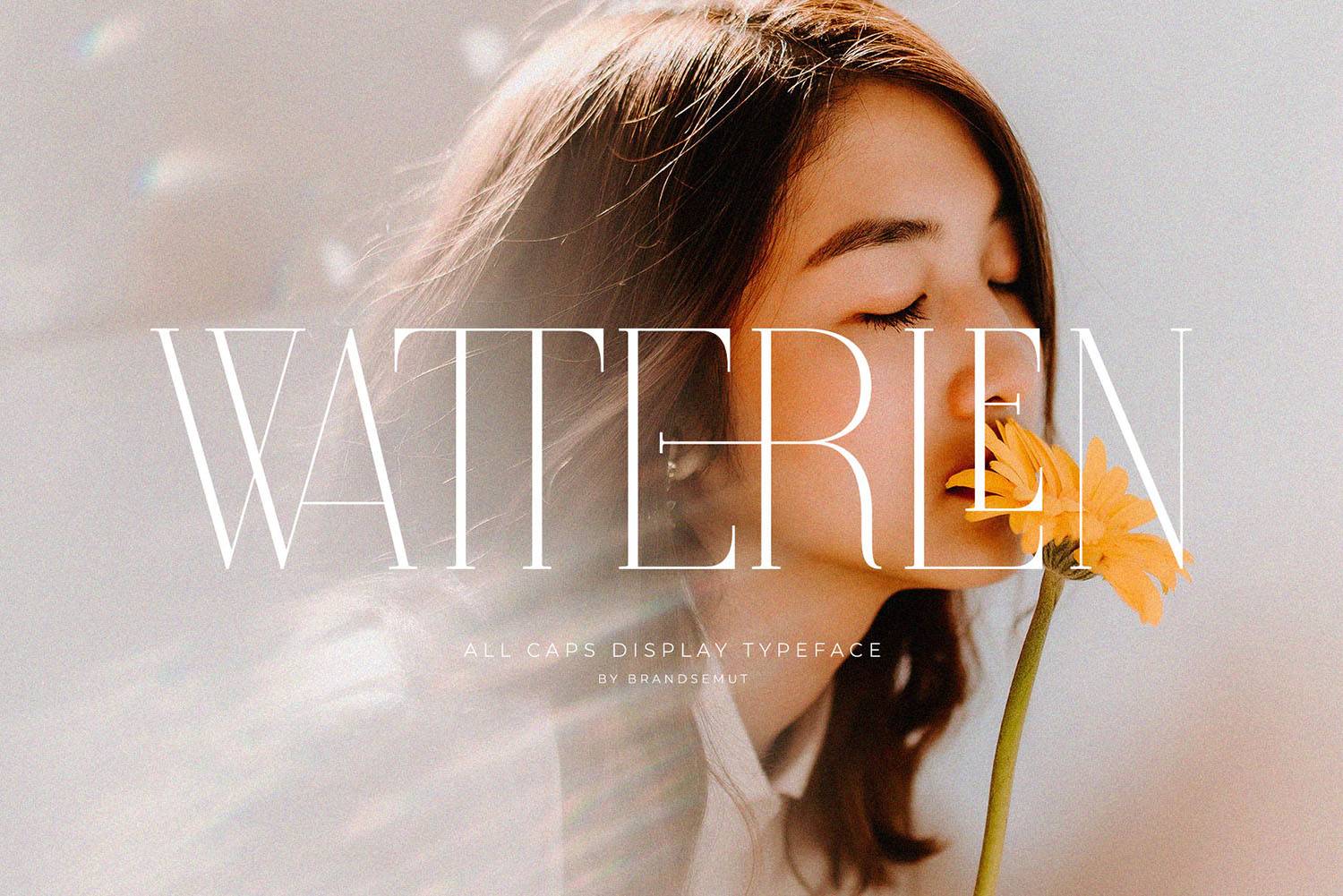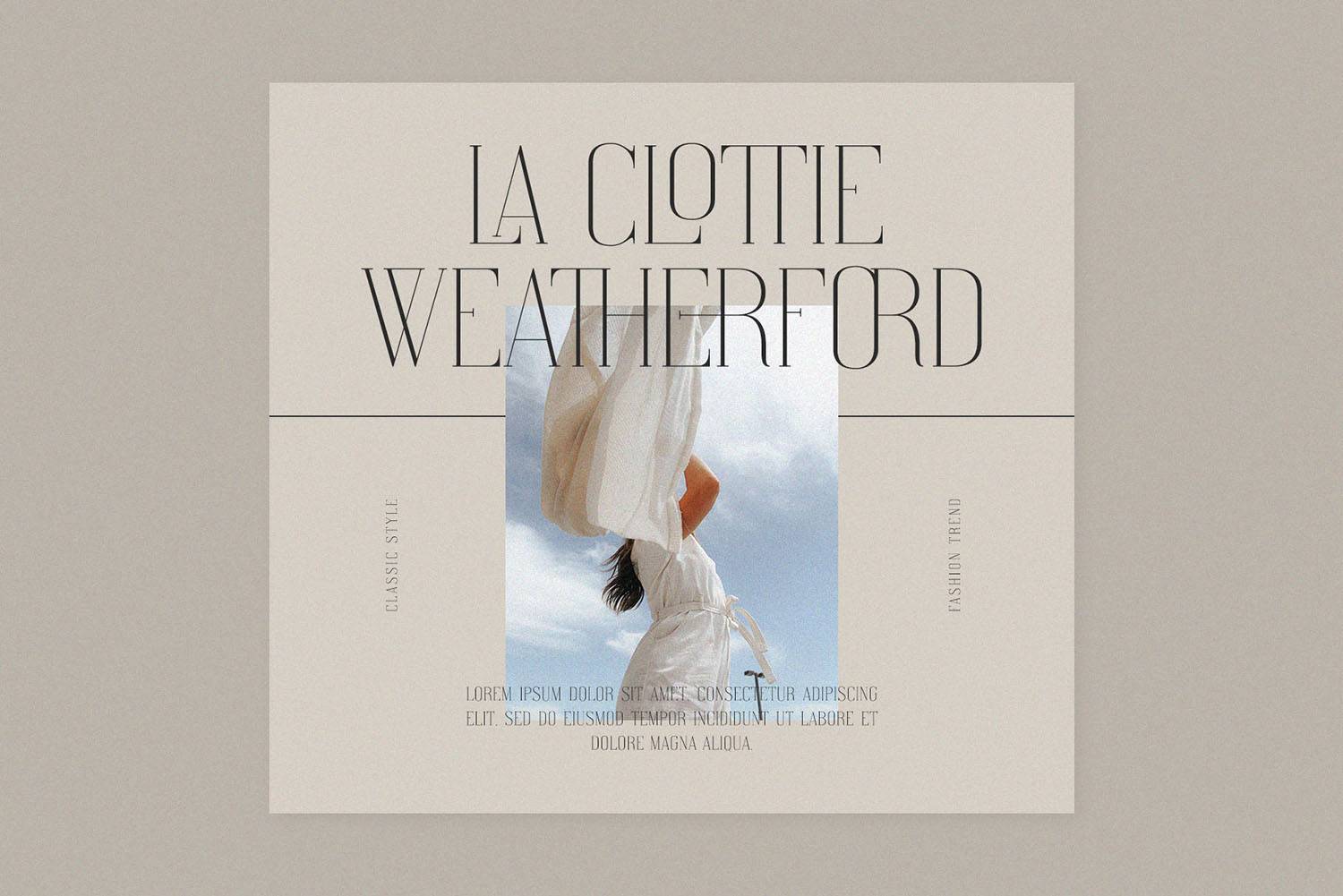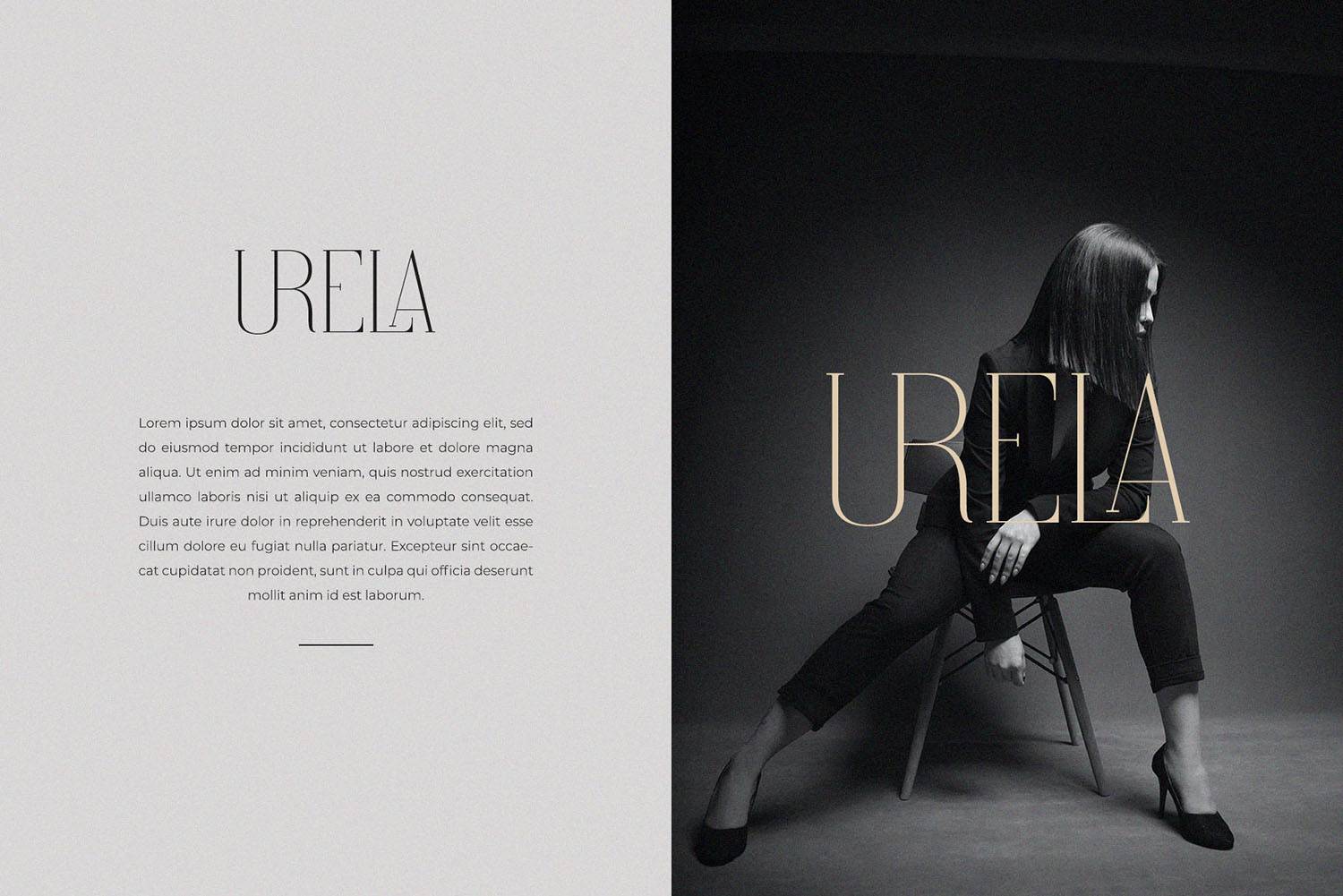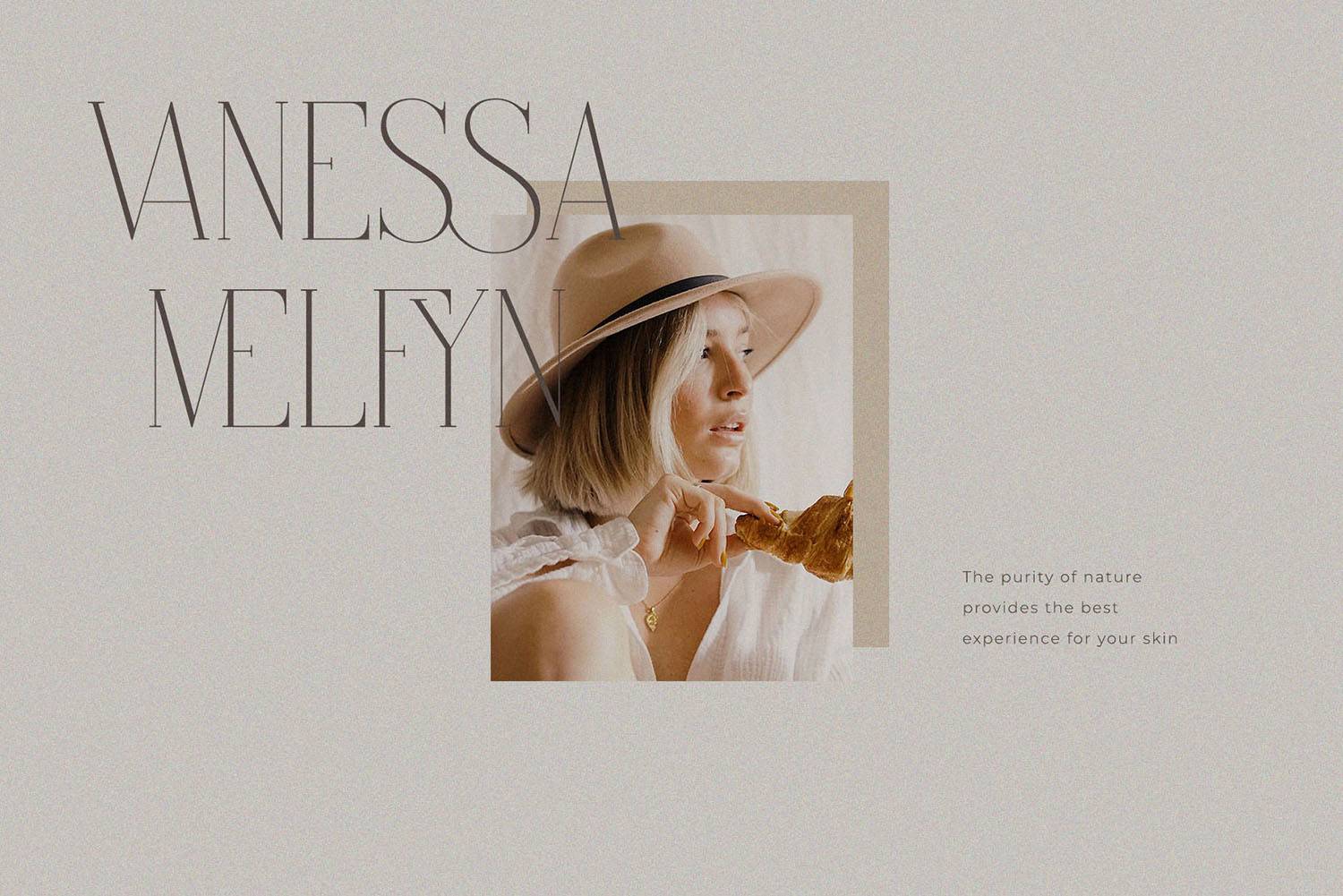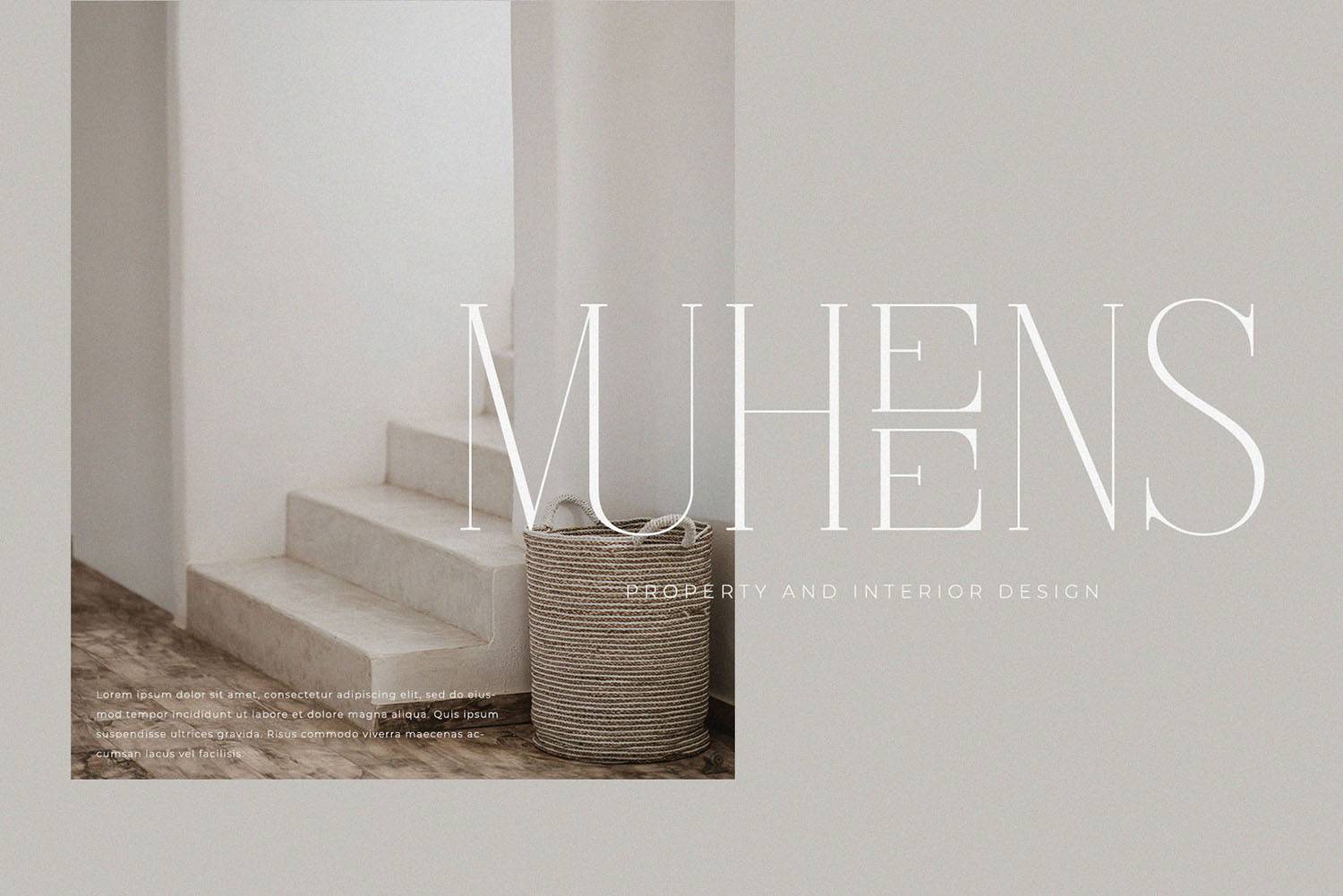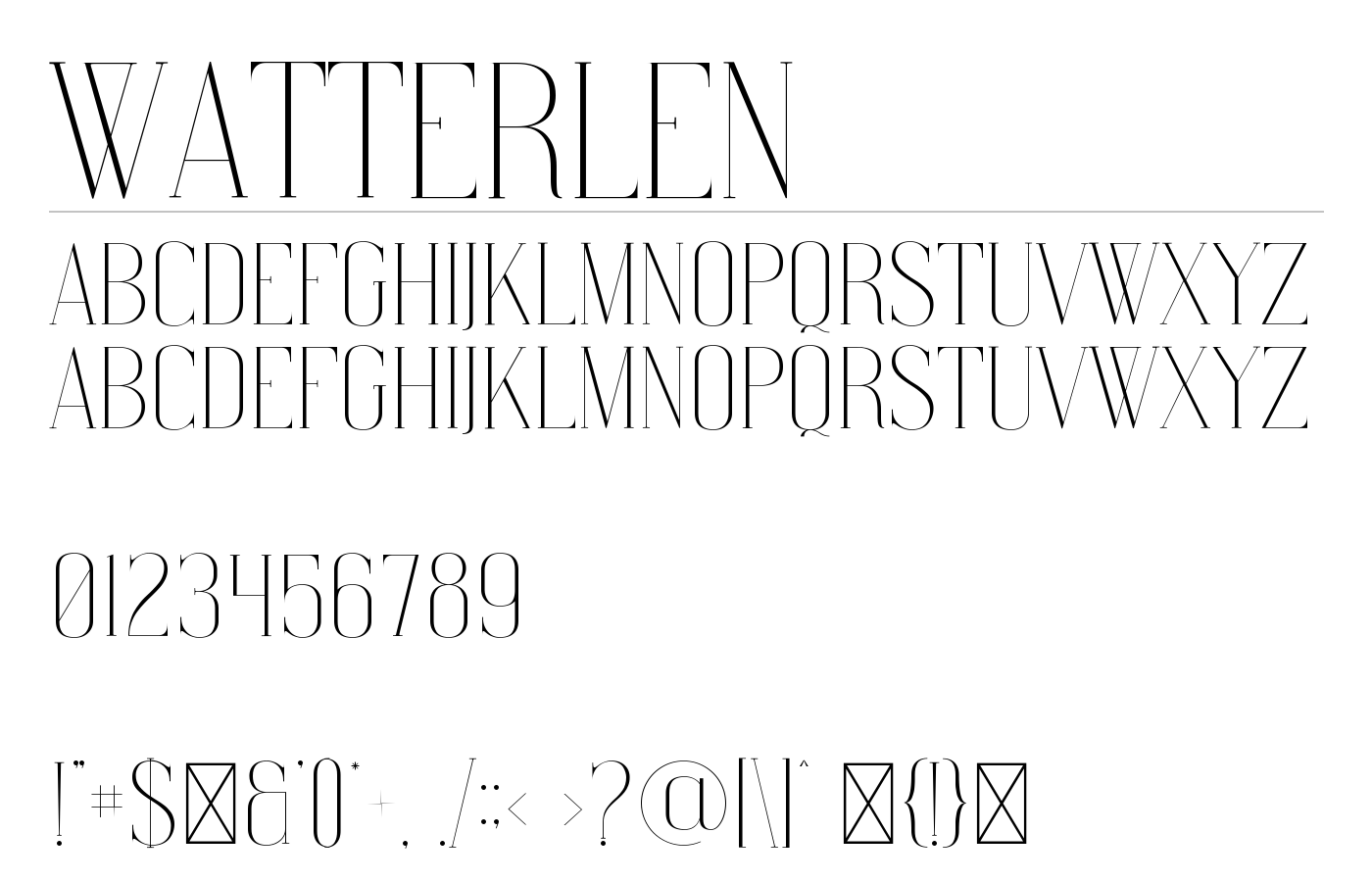
Watterlen is an elegant, ultra-thin serif font characterized by its high contrast between delicate thin strokes and slightly thicker serifs. Its tall, narrow letterforms with sharp, bracketed serifs and distinctive details like the single-story "Q" and open counters evoke a refined and sophisticated feel, making it ideal for luxury branding, fashion editorials, and upscale headlines where a stylish, modern touch is desired.
Watterlen Font
About Watterlen Font
| Font family | Watterlen Font |
| Designer | Brandsemut |